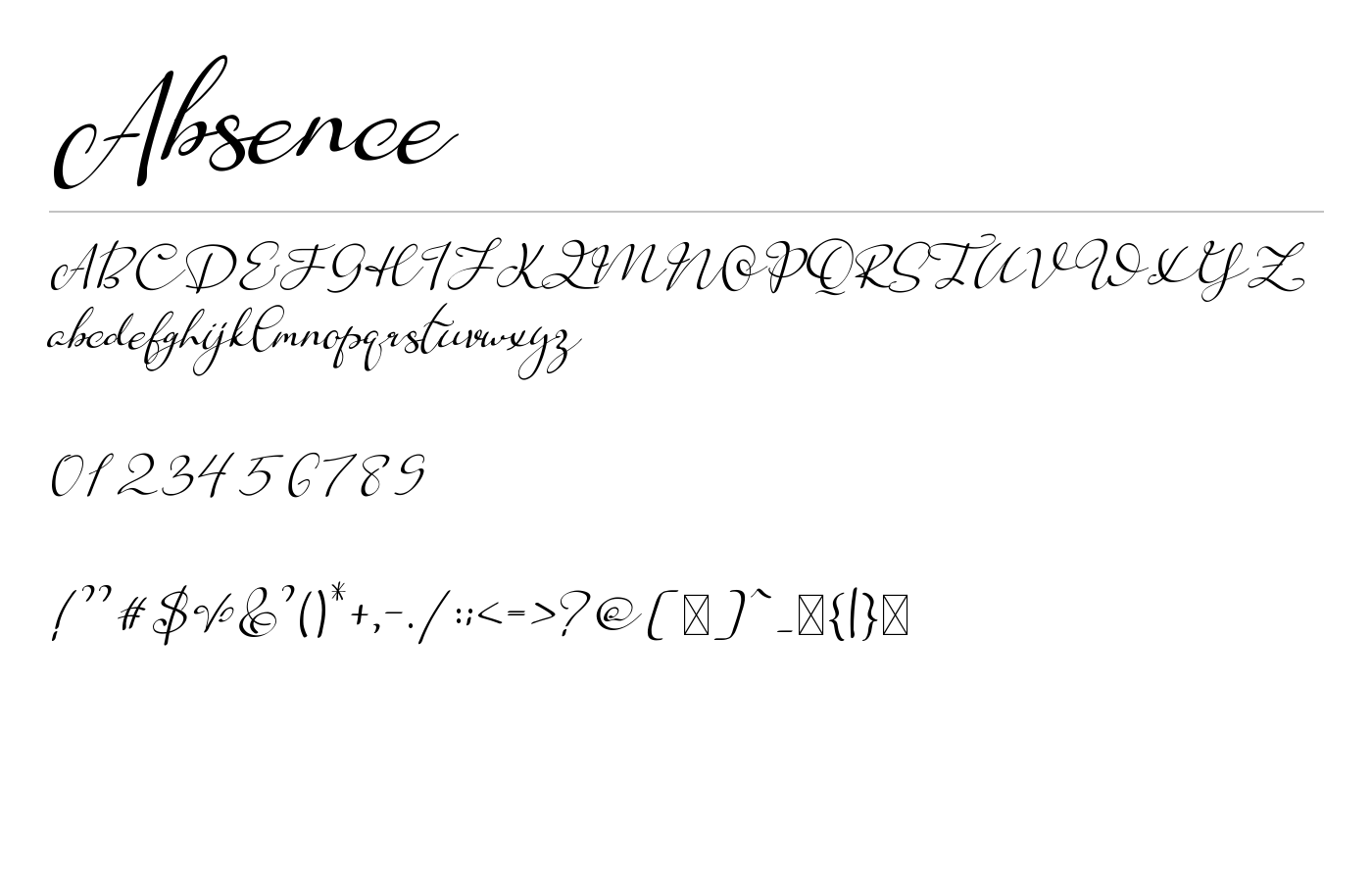
Absence Font is an elegant, flowing script typeface characterized by its delicate, fine strokes and graceful letterforms. Its high contrast and smooth, calligraphic style evoke a sense of sophistication and refinement, making it ideal for formal invitations, luxurious branding, and delicate editorial work where an airy and stylish appearance is desired. This font’s handwritten charm adds a personal touch, perfect for designs that aim to feel both classic and graceful.
Absence Font
About Absence Font
| Font family | Absence Font |
| Designer | Elchin Panahov/Murad Aghabalayev |